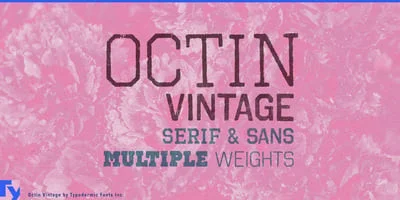
Octin Vintage Font
Octin Vintage Font is perfect for retro sports team logos, vintage athletic apparel, classic baseball card designs, nostalgic sports memorabilia, old-school gym branding, heritage football materials, traditional sporting goods packaging, vintage competition posters, athletic hall of fame displays, and classic team merchandise.
What makes Octin Vintage Font exciting is its authentic athletic heritage and timeless sports tradition that captures the golden era of American athletics with rugged determination and championship spirit. This powerful typeface embodies the essence of vintage sportsmanship with its bold character construction and athletic proportions that evoke leather helmets, wooden baseball bats, and the pure competitive spirit of classic American sports. The font's championship character creates an immediate connection to sports history and the legendary achievements of athletic heroes.
Octin Vintage Font family includes regular weight with athletically crafted character designs featuring vintage sports proportions and classic athletic styling. The typeface maintains excellent impact and readability while showcasing its distinctive sports-focused personality through powerfully designed letterforms that seem forged in the fires of competitive determination and athletic excellence.
Sports brand managers consistently choose Octin Vintage Font for projects requiring authentic athletic heritage and vintage sports credibility. This remarkable typeface brings the spirit of classic competition to brand communications, combining vintage athletic aesthetics with championship reliability to create memorable sports experiences. The powerfully designed characters ensure maximum athletic impact across all applications, making it essential for sports teams, athletic brands, and any organization seeking to communicate the timeless values of sportsmanship and the enduring legacy that comes from honoring athletic tradition through Octin Vintage Font.